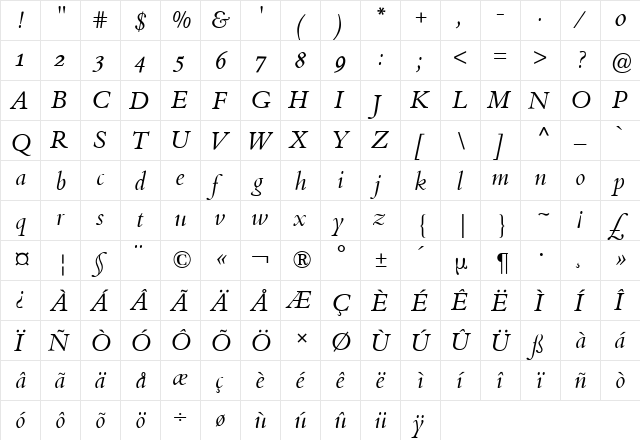
BemboExpertBQ-ItalicOsF Medium Italic
BemboExpertBQ-ItalicOsF is a composed and adaptable typeface that performs quietly and consistently across a wide range of design contexts. The slanted form adds forward momentum and visual energy.